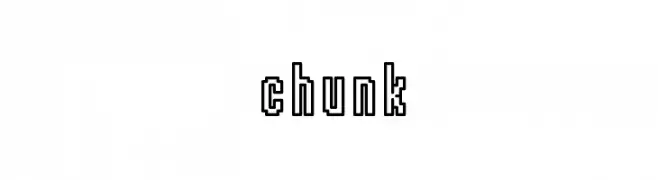
A narrow, modern font with geometric influences and clean lines.
A narrow, italic font with a dynamic and modern style.
A tall, narrow font with a bold, vintage-inspired design.
A modern, geometric outline font with a technical and structured appearance.